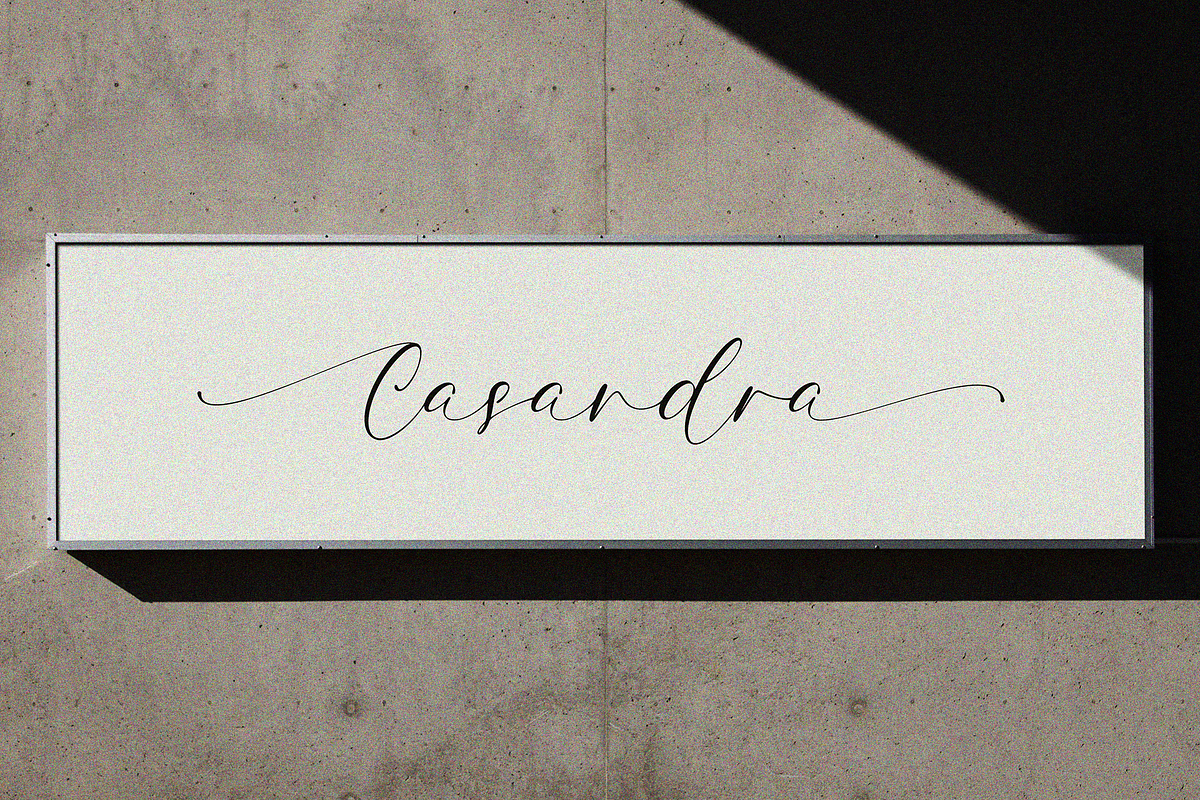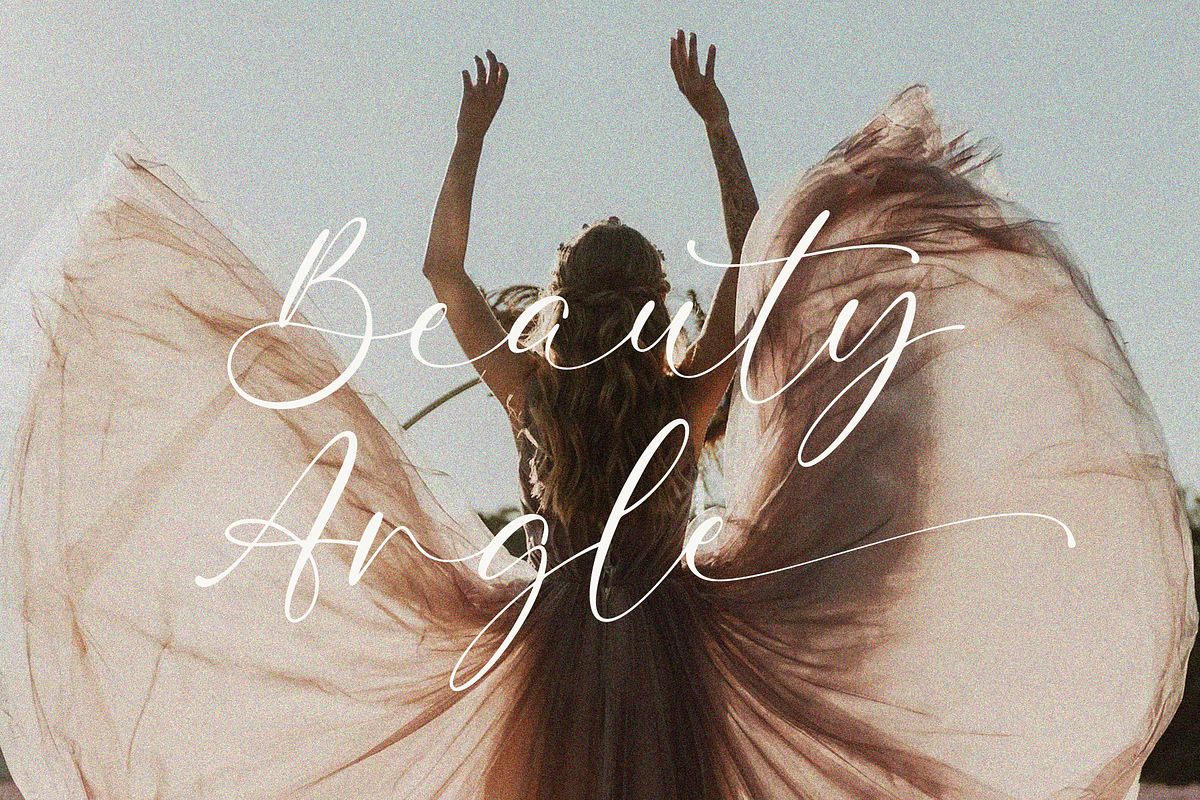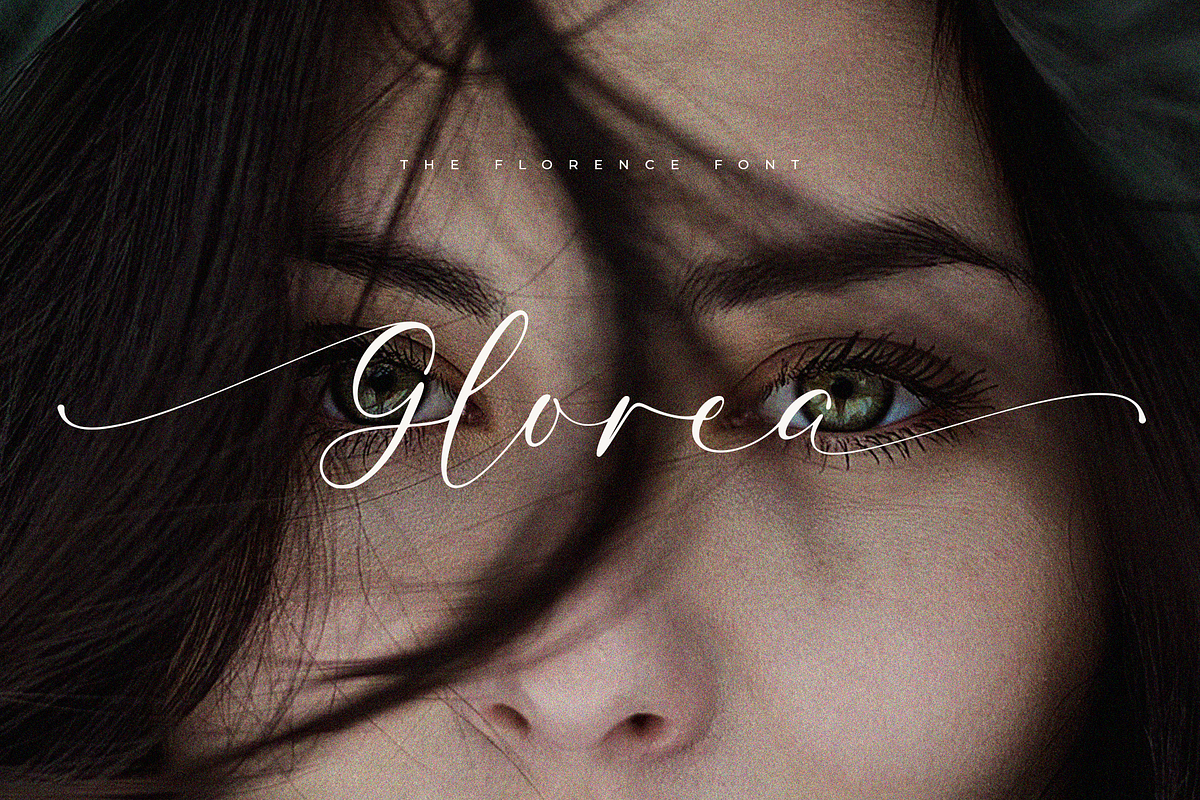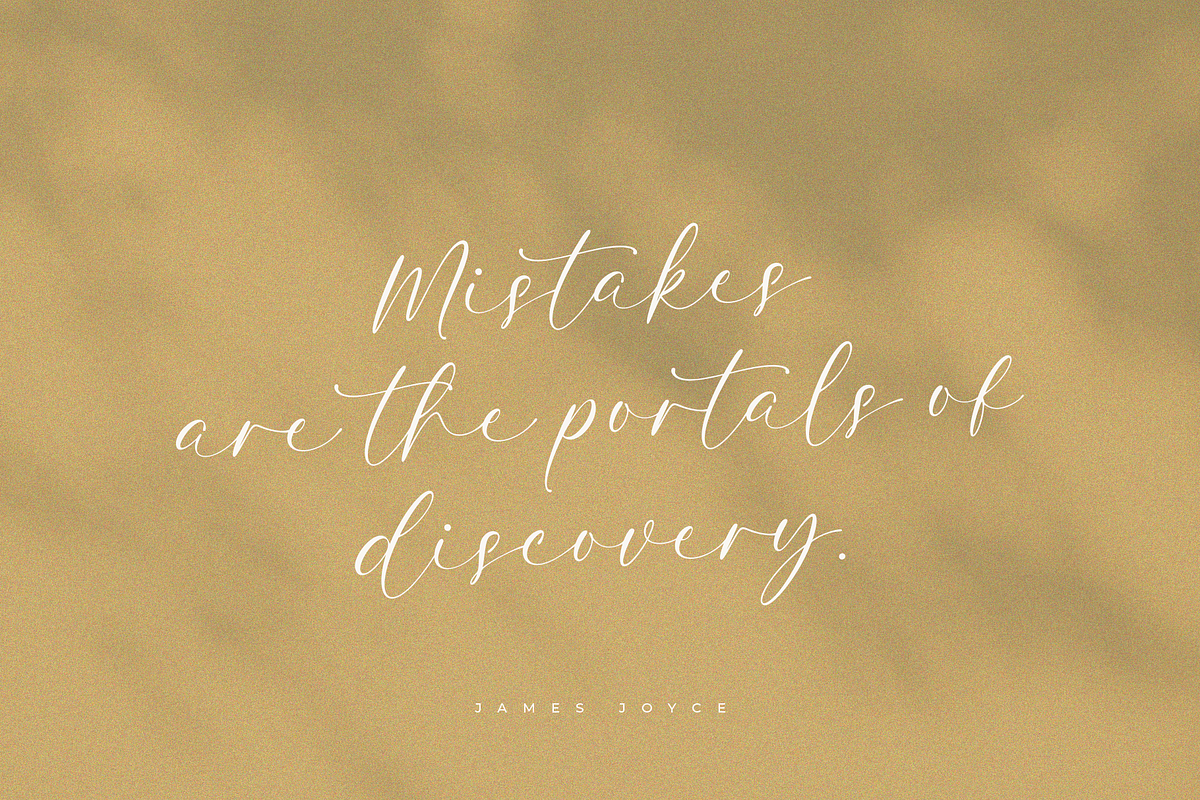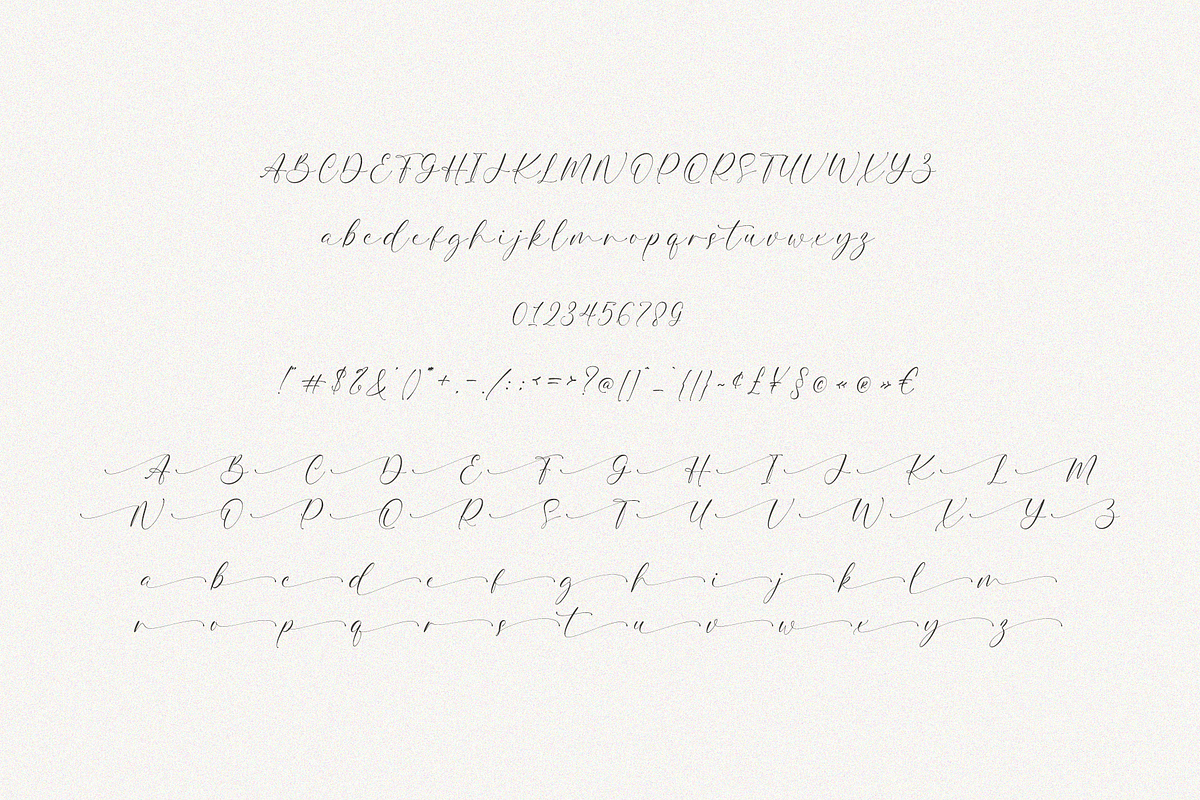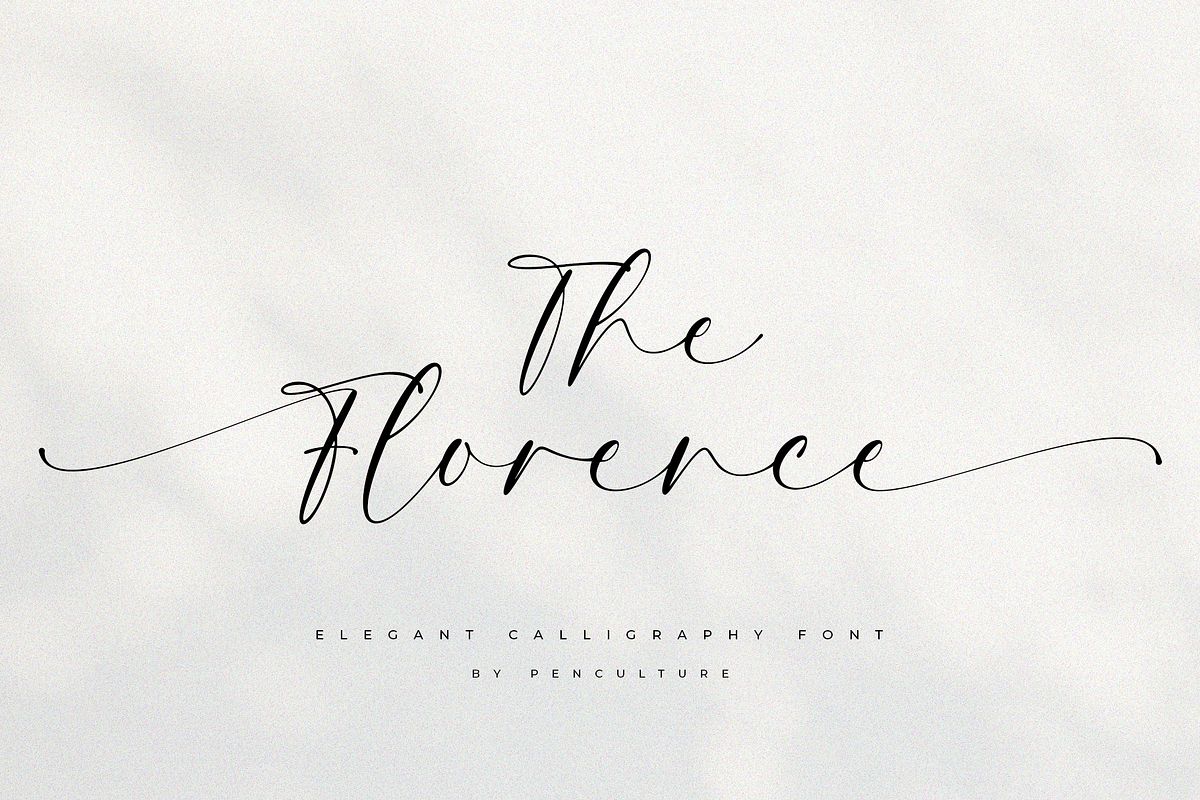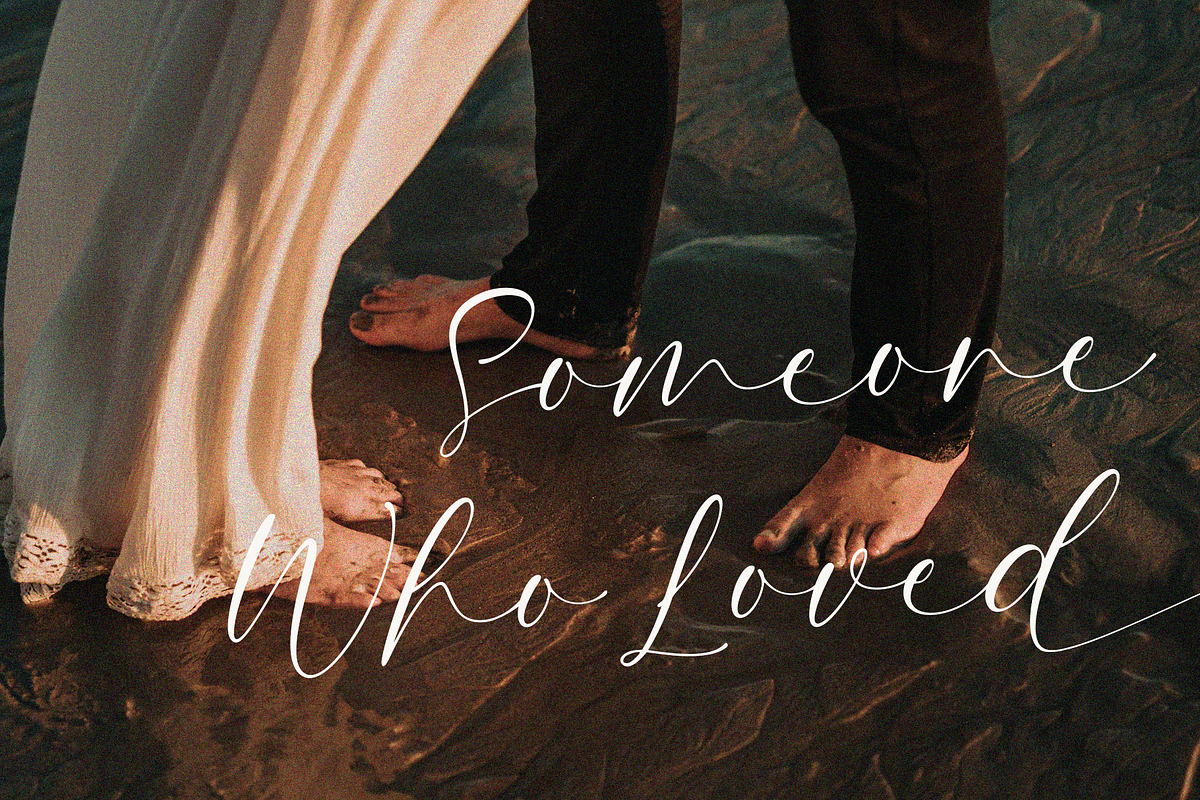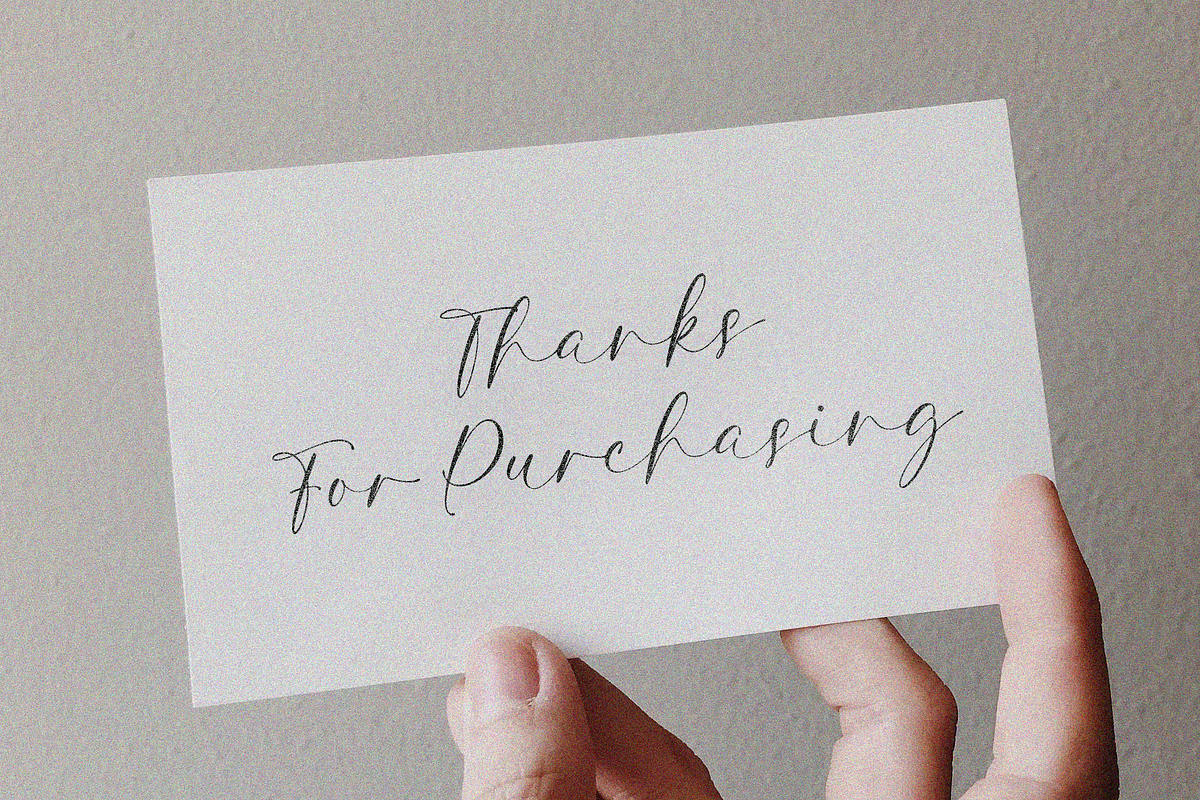
The Florence Calligraphy Font
Introducing “The Florence Calligraphy Fonts”
The Florence is a sophisticated script calligraphy font that brings a touch of elegance to your designs. With its graceful beginning and ending swashes, The Florence adds a refined flourish to select uppercase letters, making each piece truly special. This font also features smooth ligatures, ensuring a seamless and beautiful flow in your text. Perfect for wedding invitations, luxurious branding, and elegant stationery.